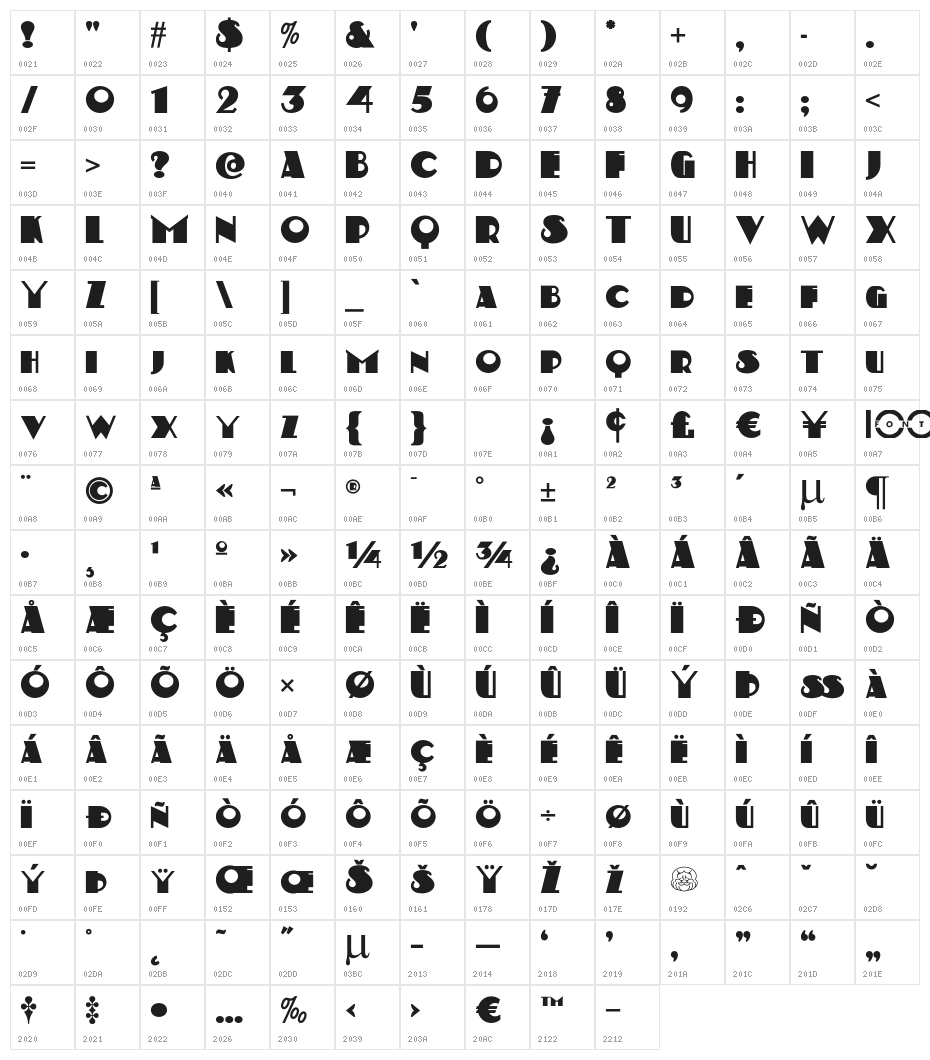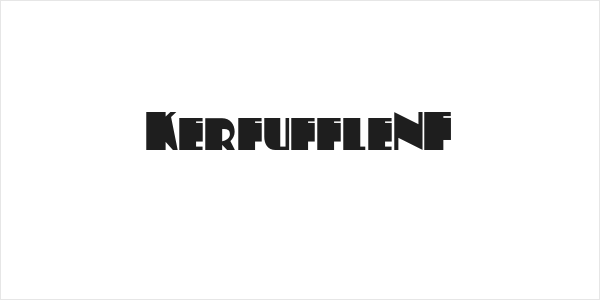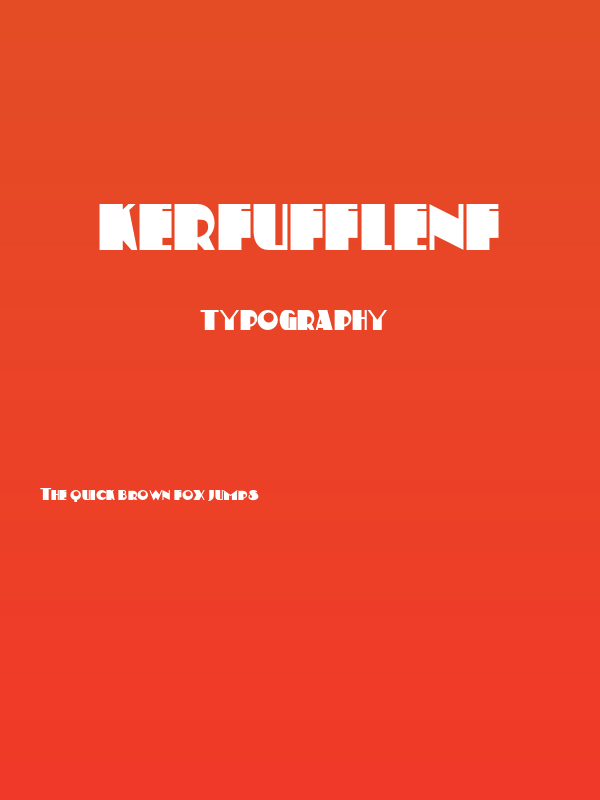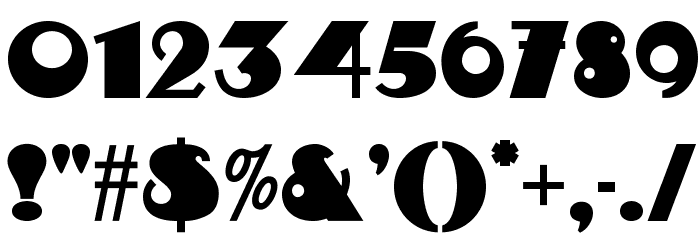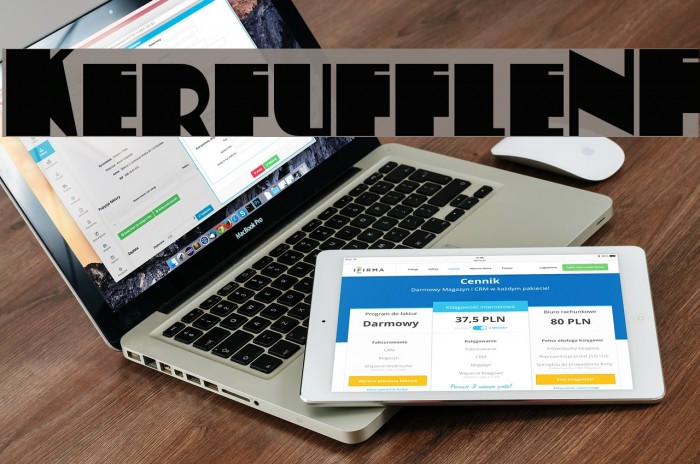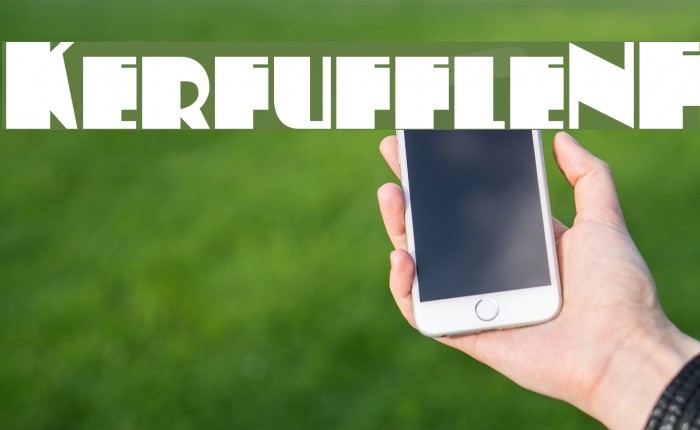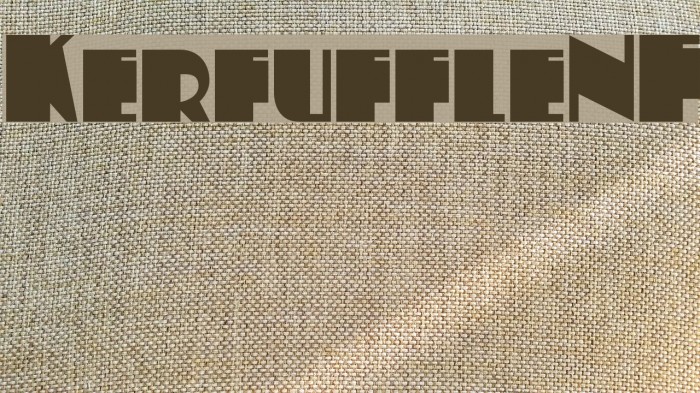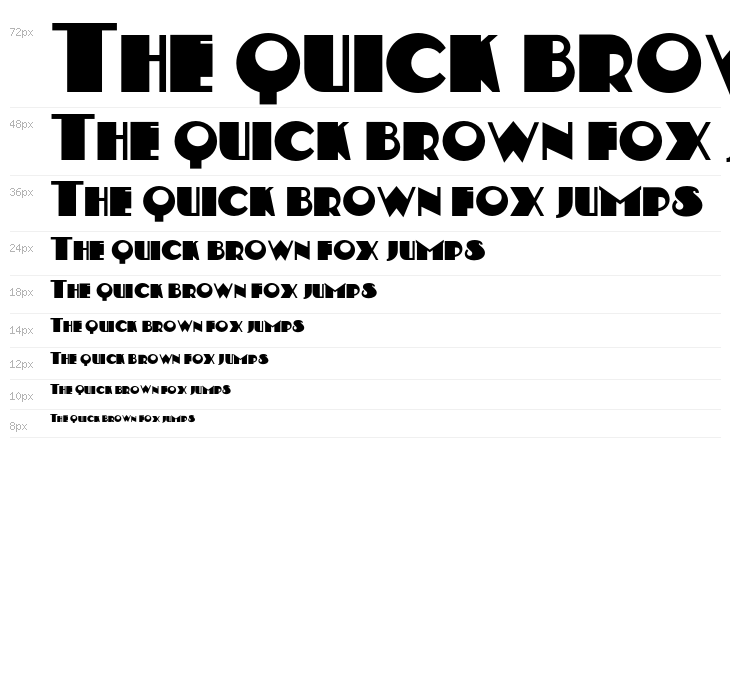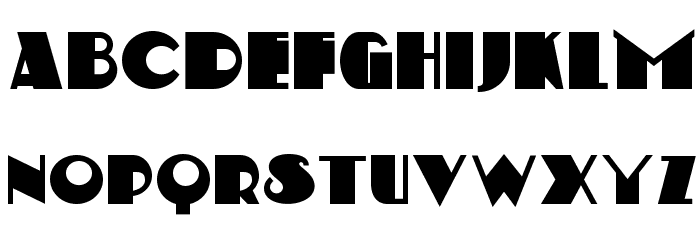
KerfuffleNF Font
KerfuffleNF Description
This font features a bold and striking design with geometric shapes and sharp angles. The uppercase letters are characterized by their solid, block-like appearance, while the lowercase letters maintain a consistent style with slightly more rounded edges. The numbers are equally bold, ensuring visibility and impact. Special characters are designed to match the overall aesthetic, providing a cohesive look. The font's unique style makes it ideal for attention-grabbing headlines and creative projects.
| Proposed Projects | Ideal for posters, branding, logos, and any project requiring a bold, eye-catching typeface. |